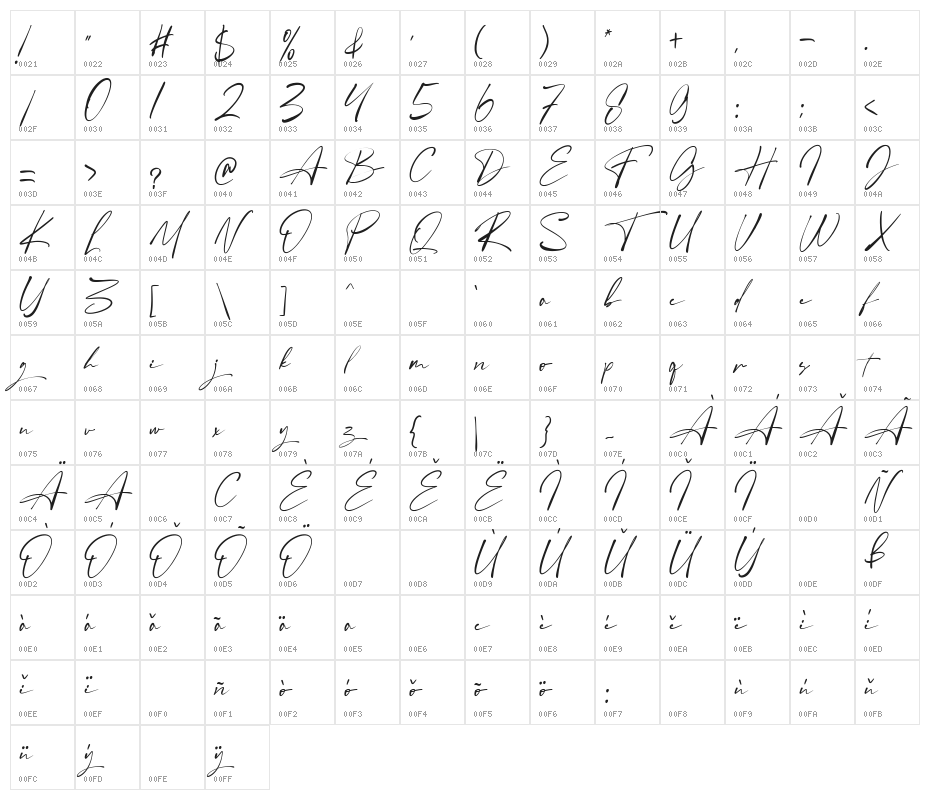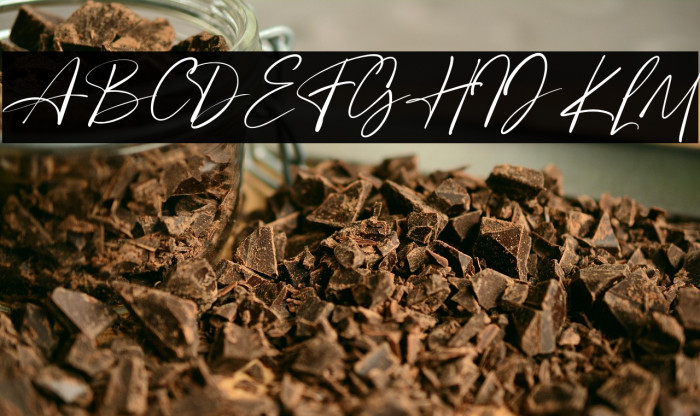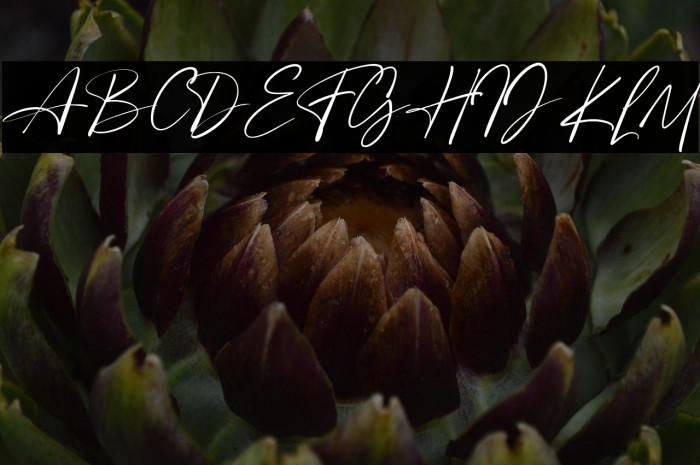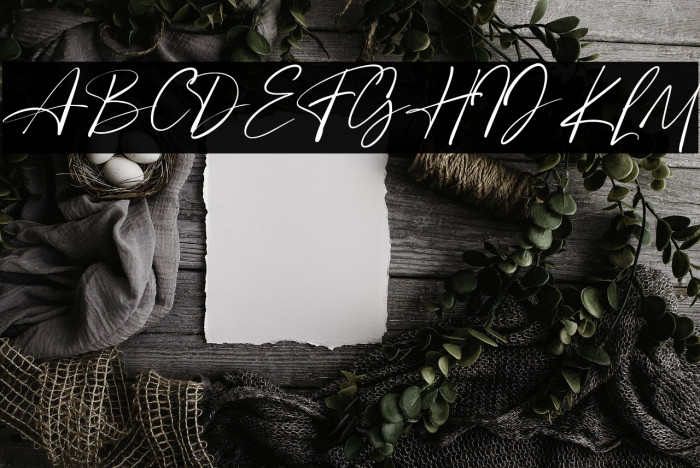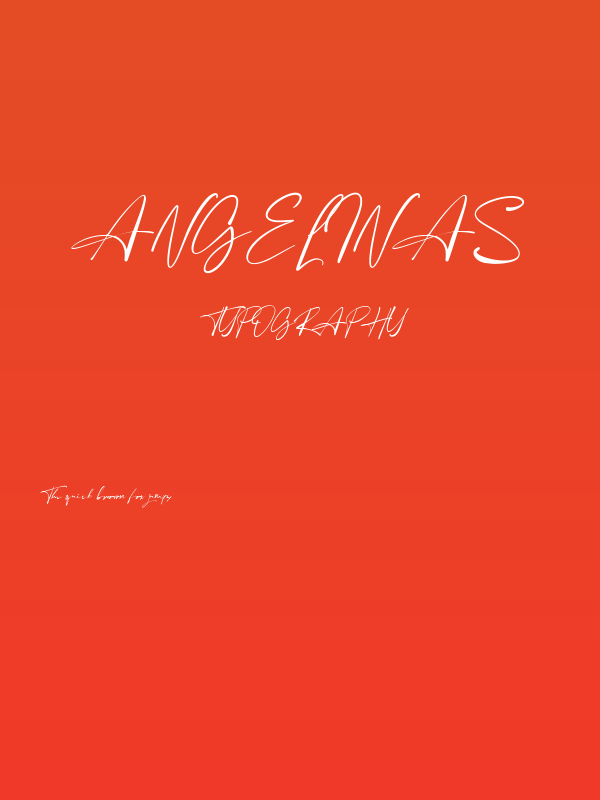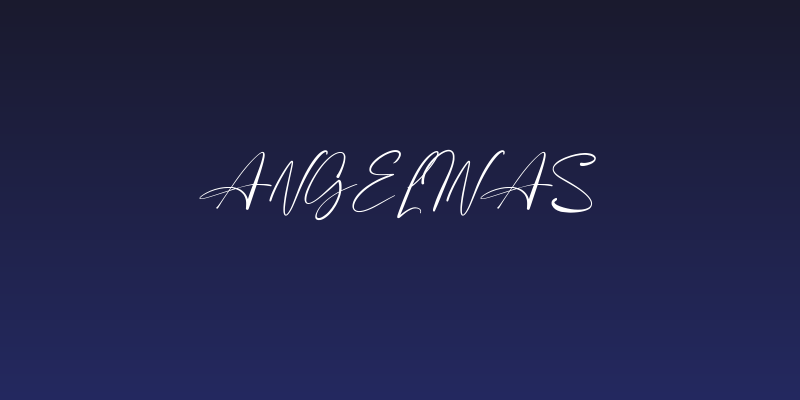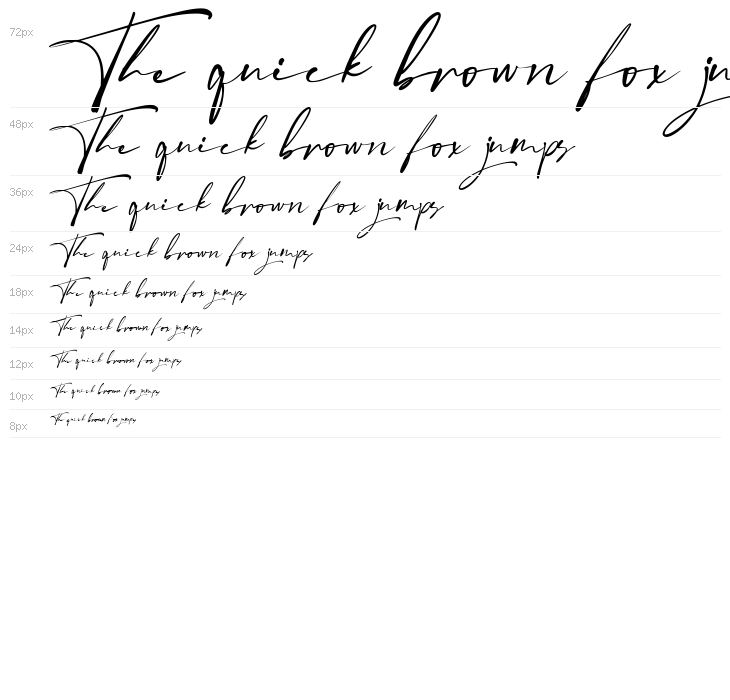
Angelinas Font
Angelinas Description
This elegant script font features a flowing, cursive style with a modern touch. The letters are connected with smooth, sweeping strokes, giving it a handwritten appearance. The uppercase letters are bold and expressive, while the lowercase letters maintain a delicate and graceful form. The numerals and special characters are consistent with the overall style, adding a touch of sophistication. The font's fluidity and dynamic lines make it suitable for creative and artistic projects, where a personal and stylish touch is desired.